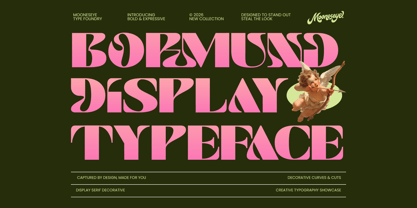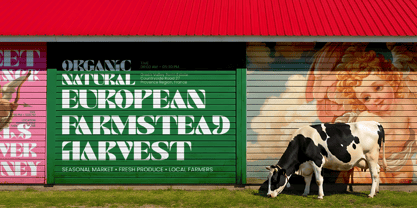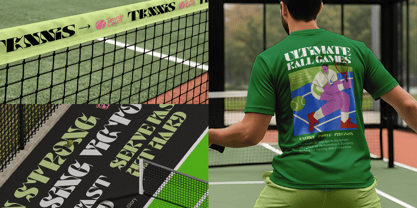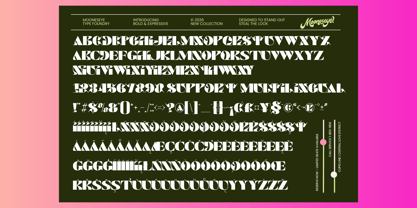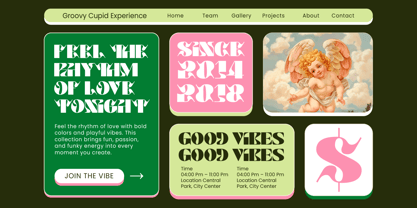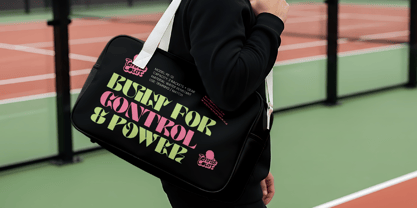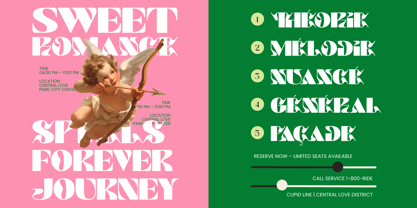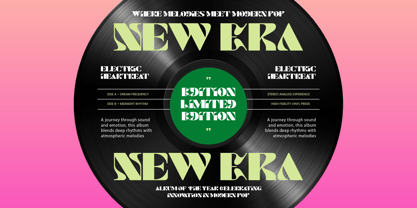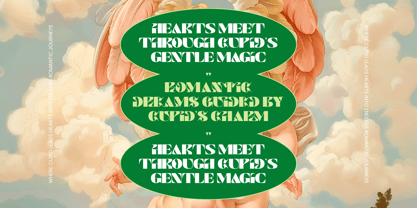
Bormund
by Mooneseye Studio
The Bormund Font Family was designed by Elhaq Farid and published by Mooneseye Studio. Bormund contains 2 styles and family package options. More about this family
Meet Bormund — a bold, expressive display serif that turns any design into a head-turning statement. Whether you're building a brand, designing a poster, or creating something that needs to stand out in a crowd, Bormund brings the energy. Inspired by retro-groovy aesthetics with a modern twist, this font is built for designers who want their work to feel confident, expressive, and alive. Every letter has personality — from the dramatic curves to the sharp decorative cuts that make Bormund instantly recognizable. Imagine your brand name on a poster that stops people mid-scroll. A music event flyer that feels loud even before you play a single note. A streetwear logo that looks like it was made by a studio with decades of experience. That's what Bormund gives you.
Designers: Elhaq Farid
Foundry: Mooneseye Studio
About Mooneseye Studio
Mooneseye Studio, based in Indonesia, is a premier graphic design firm with a fervent passion for type design. Renowned for their expertise in creating visually compelling assets, the studio specializes in a broad spectrum of design services, including custom typefaces, innovative branding, and dynamic digital graphics. Their deep appreciation for typography drives their meticulous approach to each project, ensuring that every detail aligns perfectly with the client's vision. From crafting unique visual identities to producing engaging marketing materials, Mooneseye Studio combines artistic creativity with strategic insight to deliver designs that are not only aesthetically stunning but also highly effective. Their commitment to excellence and their ability to merge form with function make them a valued partner for businesses looking to enhance their visual presence and make a lasting impression in a competitive landscape. With Mooneseye Studio, clients can expect a design experience that is both professional and deeply creative, tailored to elevate their brand's impact.